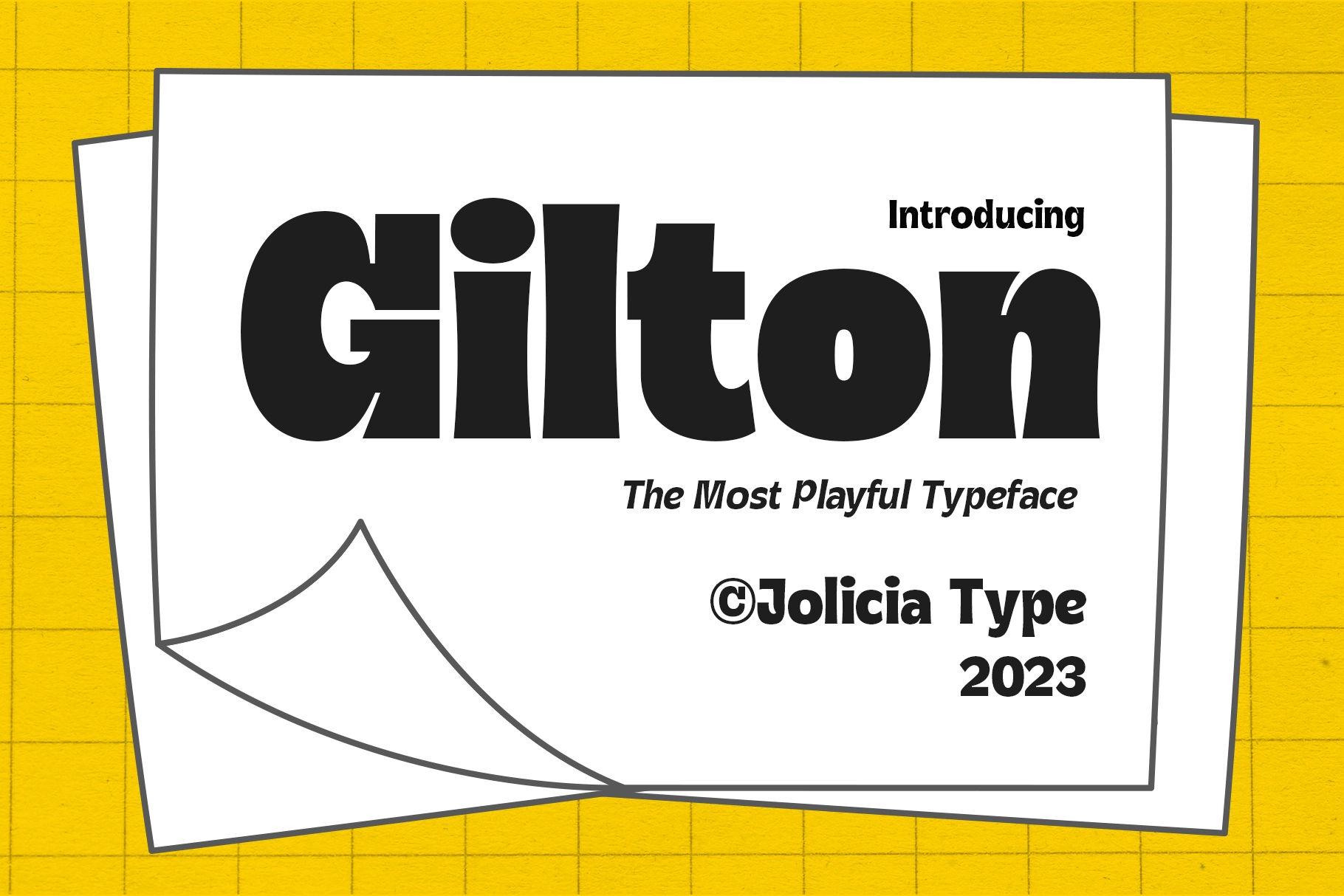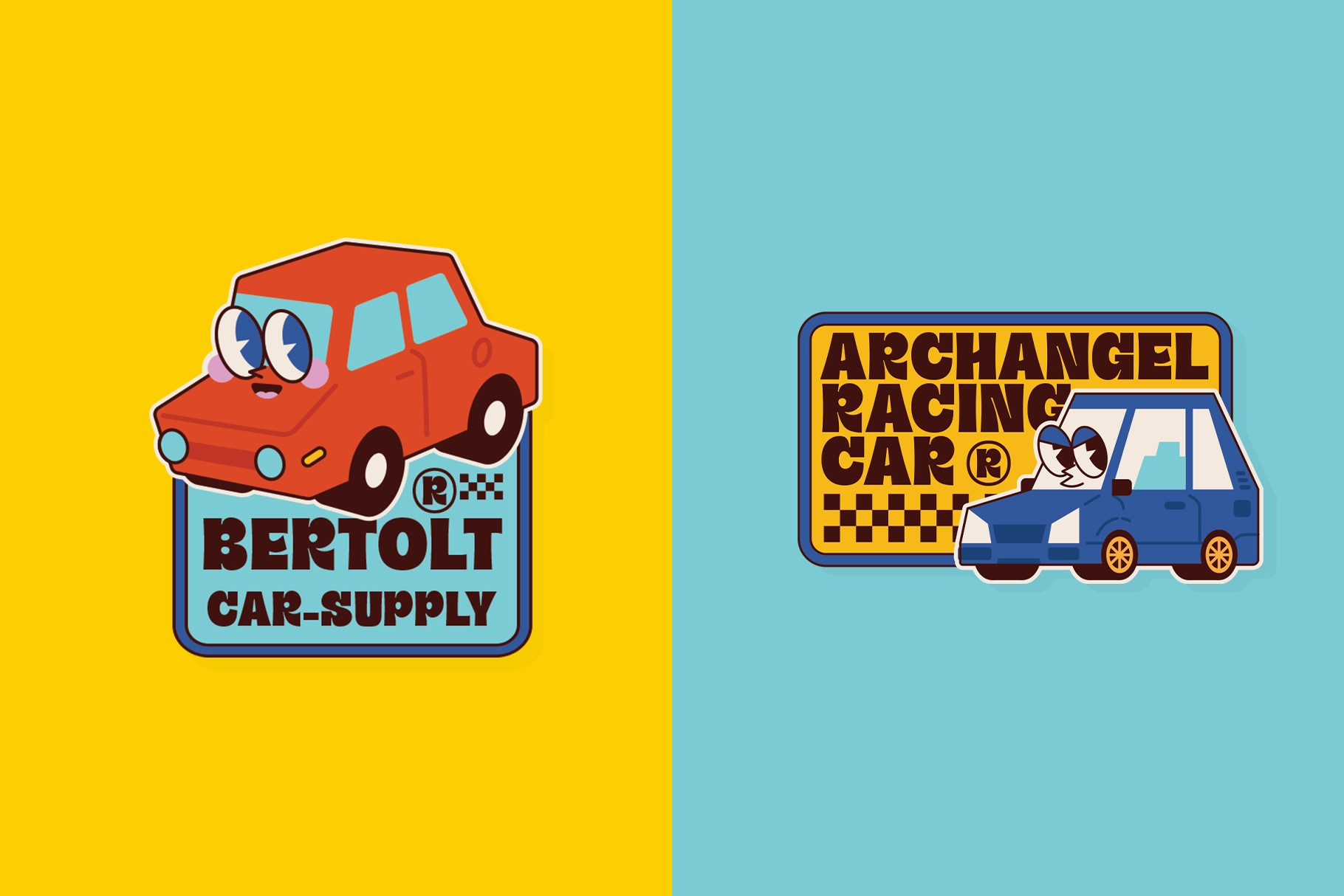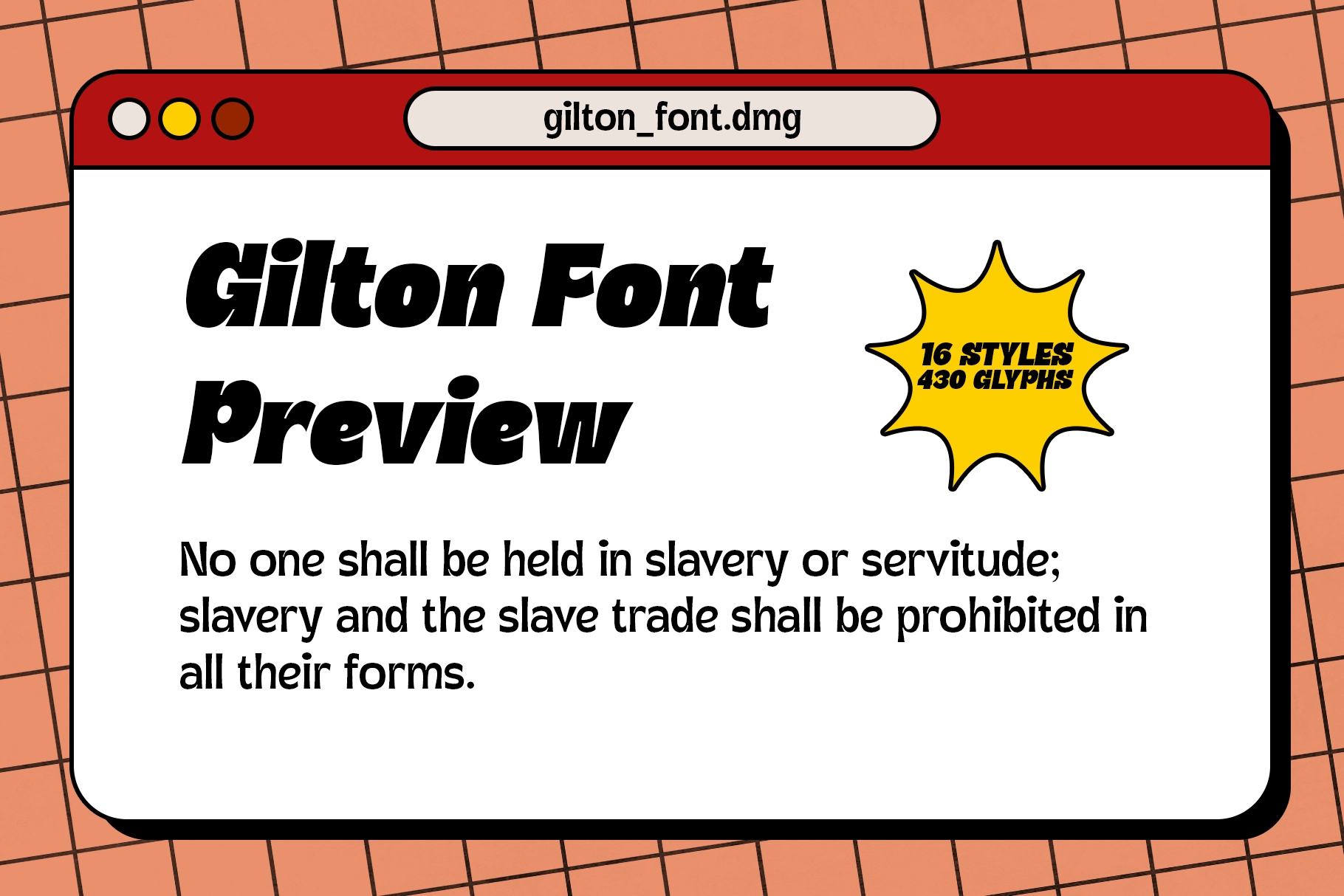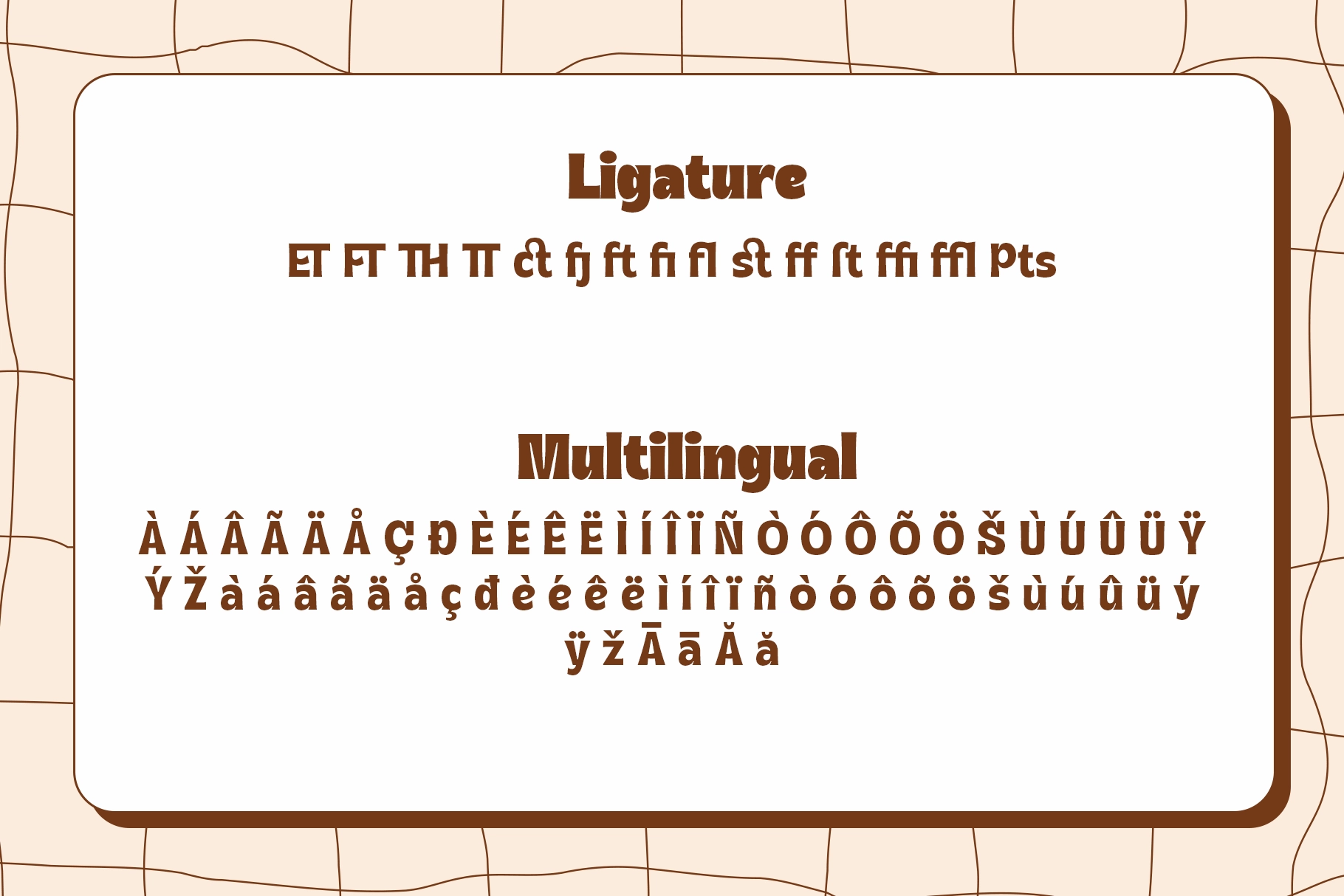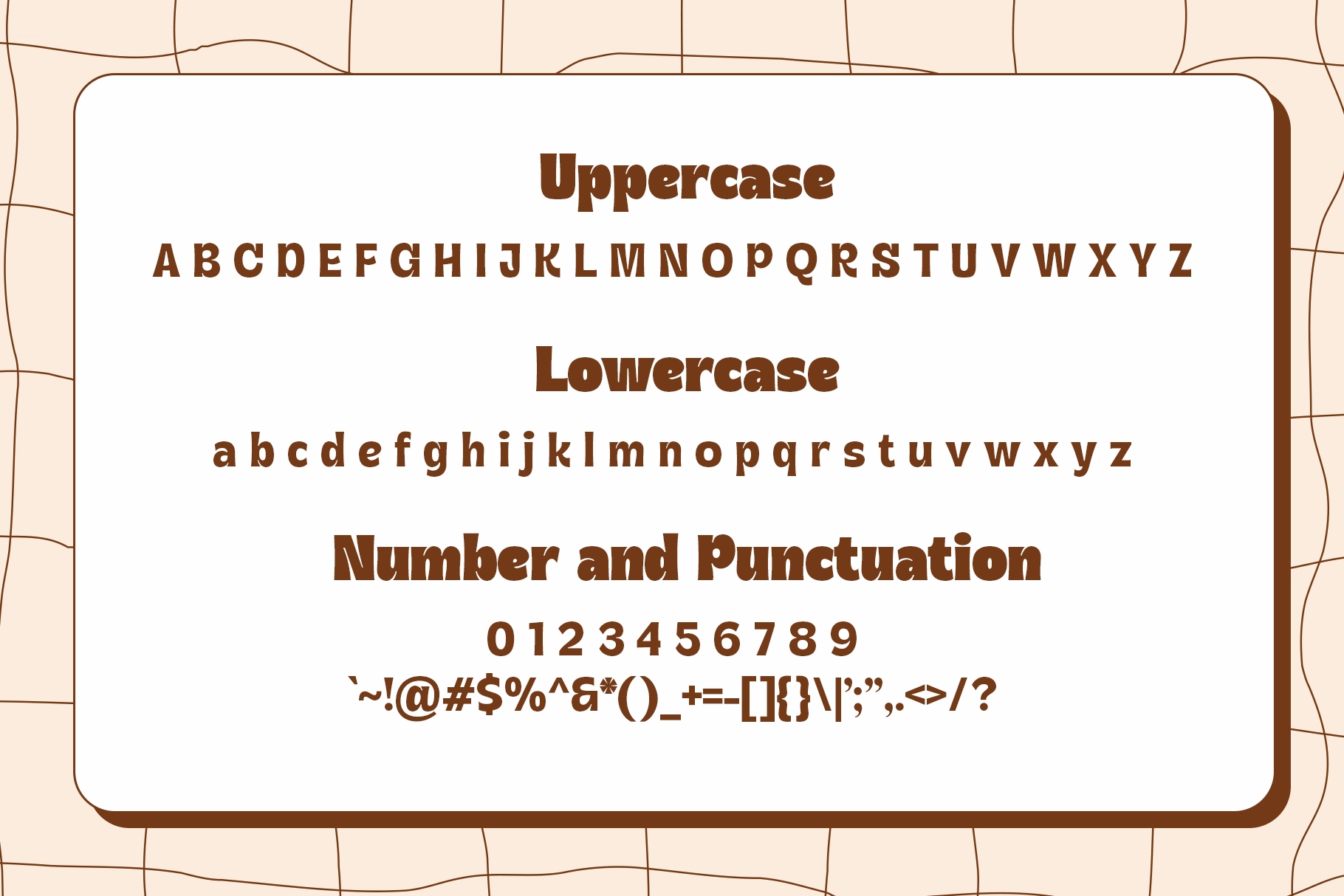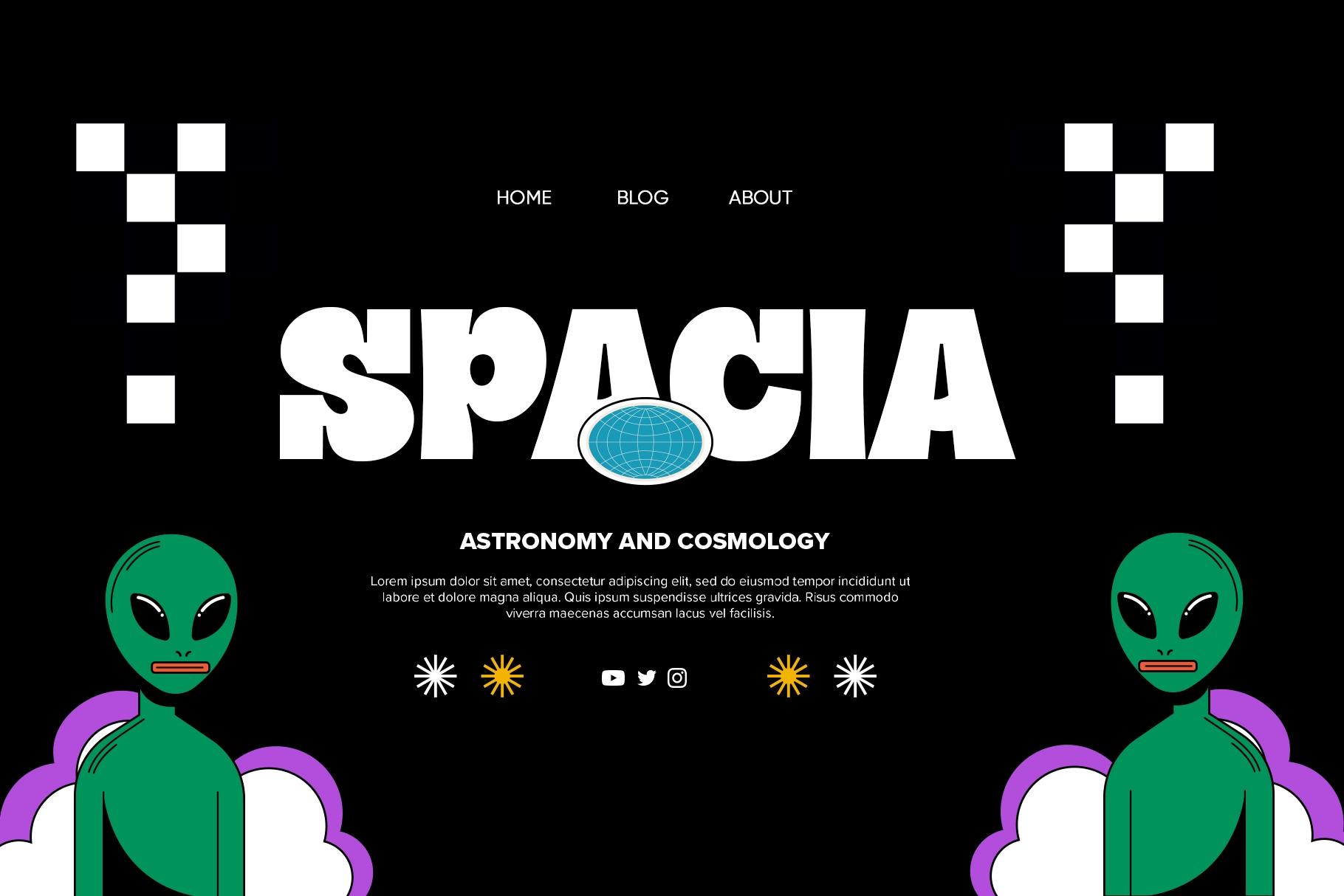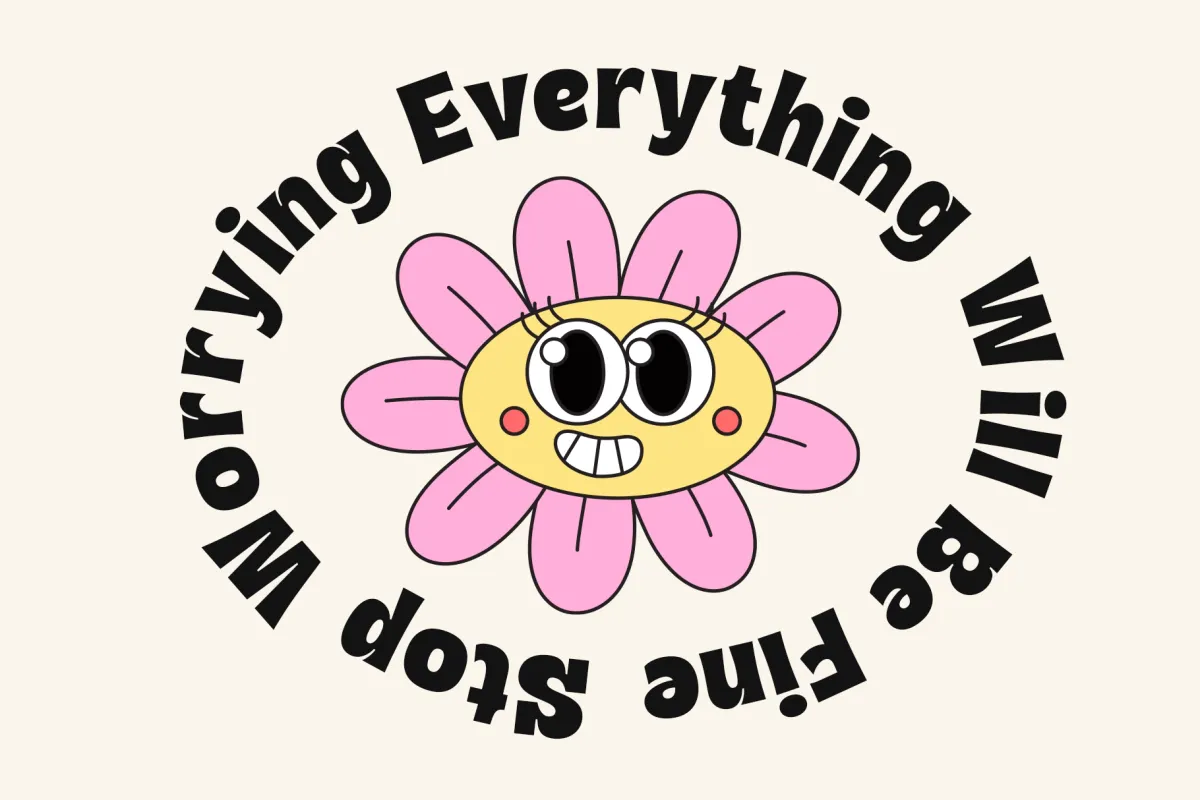
Gilton - Retro Bold Display Font Family
ThinSlanted
ExtraLightSlanted
LightSlanted
Slanted
MediumSlanted
SemiBoldSlanted
BoldSlanted
ExtraBoldSlanted
Gilton – Retro Bold Display Font Family is a playful and expressive typeface inspired by retro typography with a modern creative twist. Gilton features bold shapes, smooth curves, and distinctive corners that give it a lively and memorable personality. Its strong visual presence makes it perfect for eye-catching headlines and creative typography that needs to stand out.
With 16 versatile styles and support for 93 languages, Gilton offers excellent flexibility for a wide range of design projects. Whether used for posters, magazines, branding, user interfaces, logos, apparel graphics, or editorial layouts, this font family brings warmth, character, and confident retro charm to every composition.
- 16 Font Styles
- Uppercase & Lowercase Characters
- Numerals, Punctuation & Symbols
- Ligatures
- Multilingual Support (93 Languages)
- Retro Bold Display Style